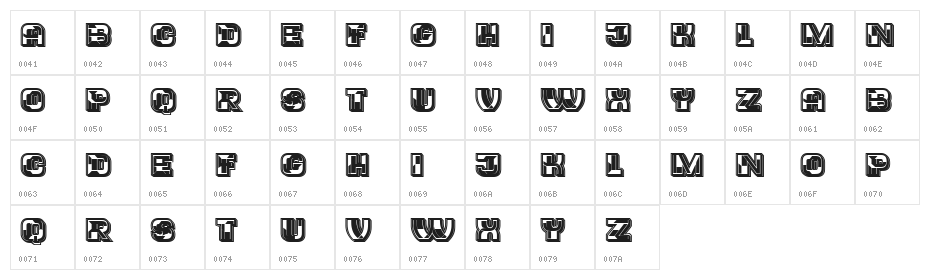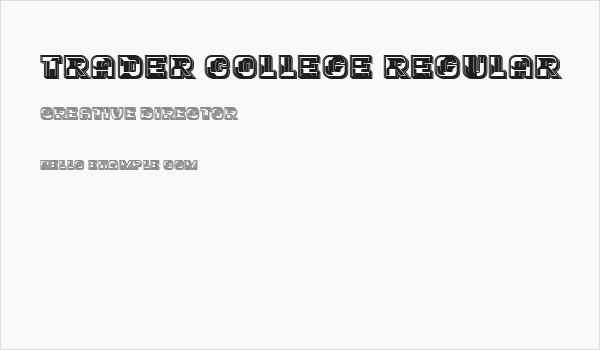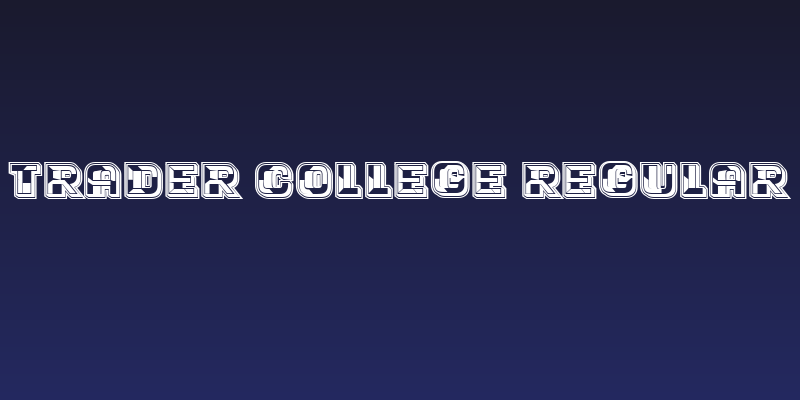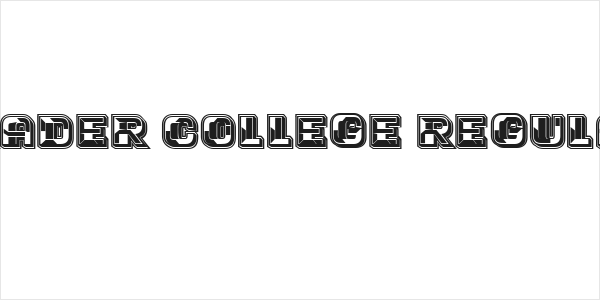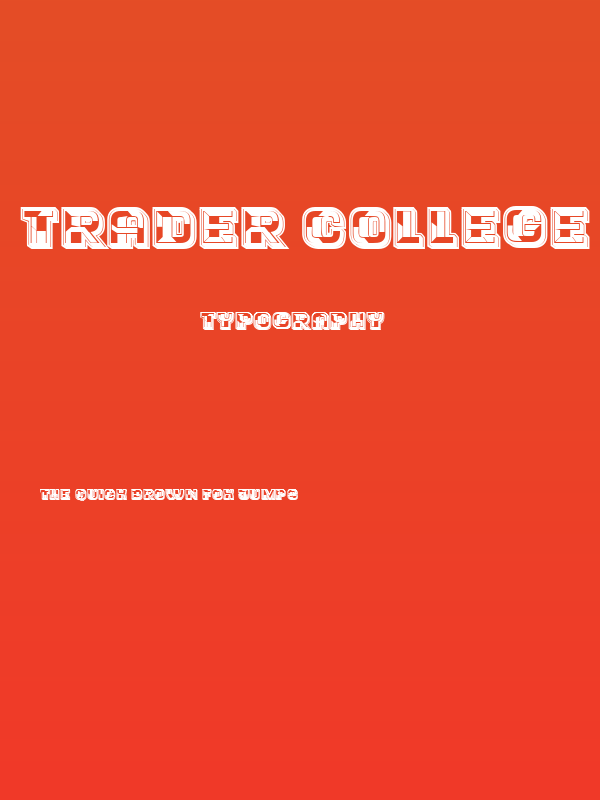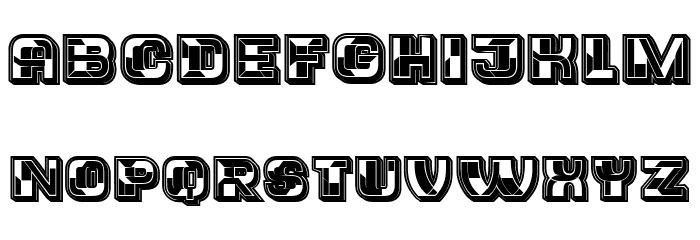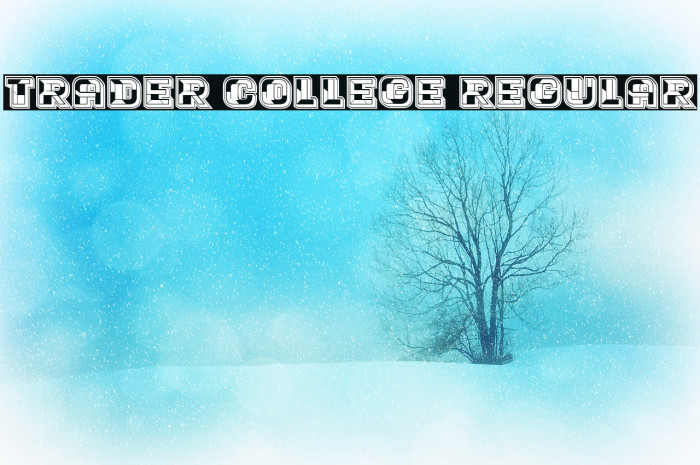
Trader College Regular Font
Trader College Regular Description
This font features a bold, collegiate style with a strong, three-dimensional appearance. The letters are uppercase and have a distinct, blocky design with a shadow effect that gives them depth. The geometric shapes and clean lines make it stand out, ideal for creating a sense of strength and tradition. The font's structure is consistent, with each character maintaining a uniform width and height, contributing to its balanced and cohesive look. Its boldness and shadowing make it highly visible and impactful, suitable for attention-grabbing designs.
| Use Case | Logos, Headlines |
| Proposed Projects | Ideal for sports team logos, university branding, posters, and merchandise designs. |